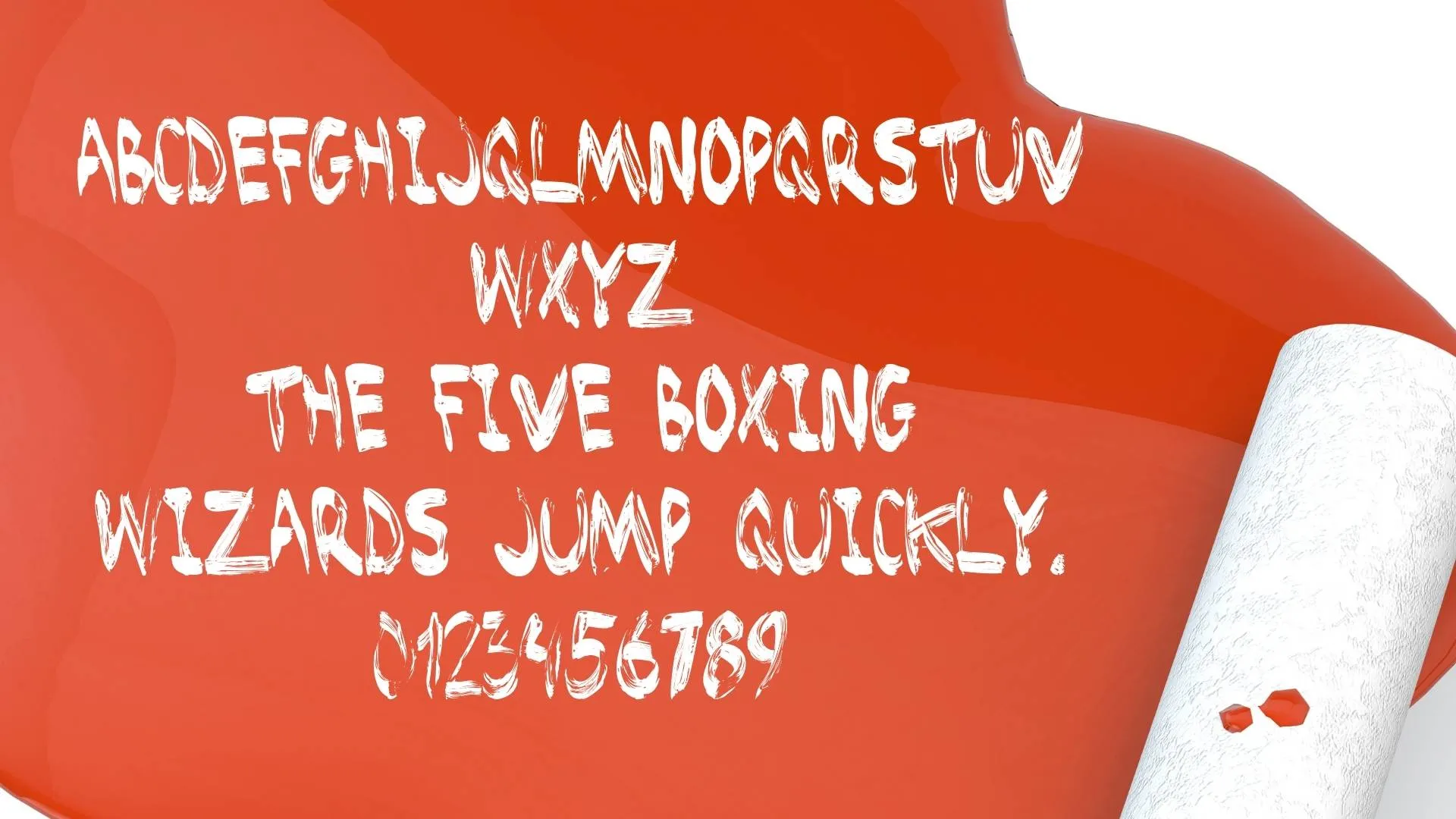
The brushed font is a very versatile and stylish typeface that was designed by a very notable designer named “Pizzadude”. The font family belongs to the Brush font family. This typeface has many unique glyphs and characters that give a great impression on design. This typeface has very bold and big letters that easily get the attention.
This font letter is made in such a way that the viewer feels that it is actually made by hand. This font character looks like a dry brush texture that gives a very bold vision to your design.
Brushed font
NameBrushed Font
DesignerPizzadude
Stylebrush